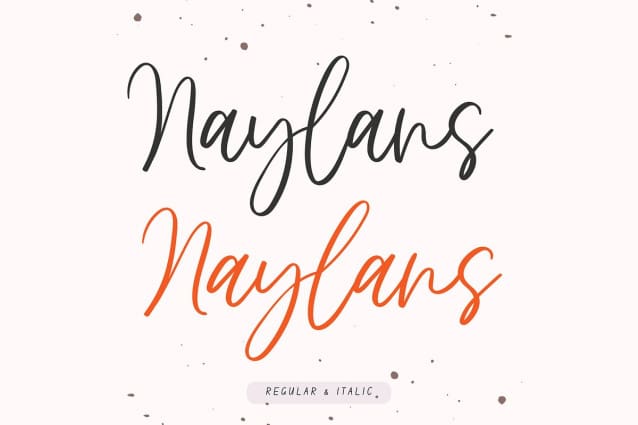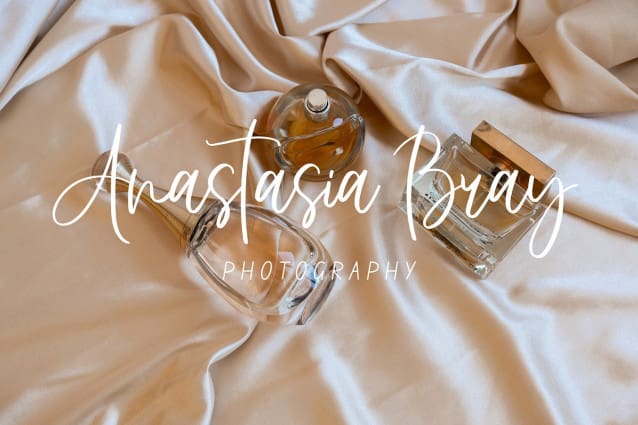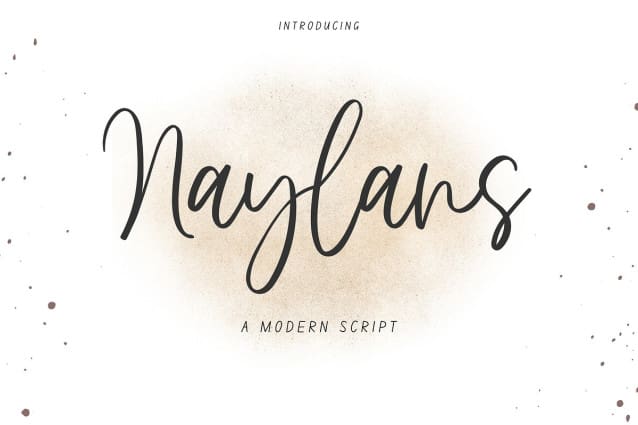
Naylans Script Font
Naylans Script Font is a modern script font. Its modern charm makes it appear wonderfully, readable, and, ultimately, incredibly versatile. This font will look outstanding in any context, whether it’s being used on busy backgrounds or as a standalone headline!